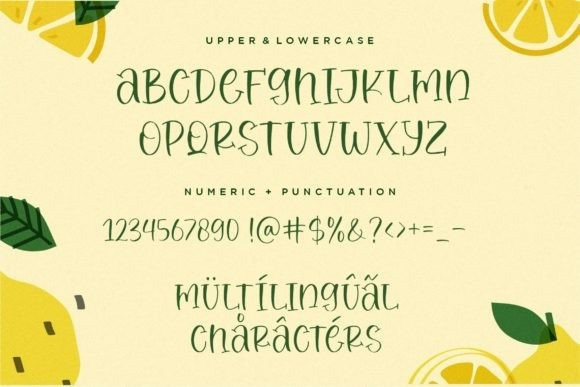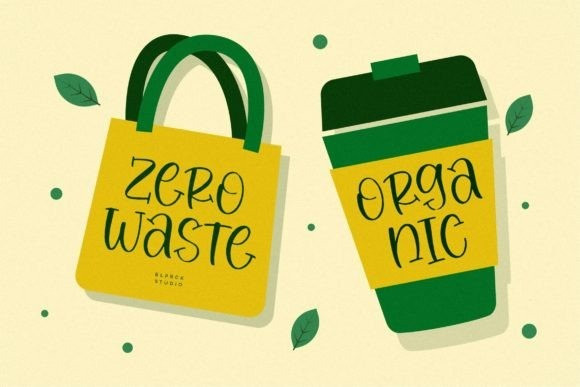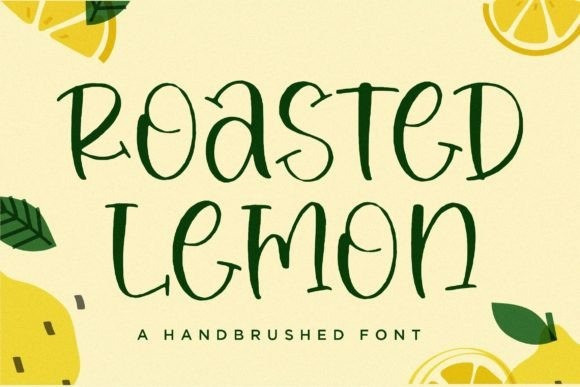
Roasted Lemon Font
Roasted Lemon Font is a Handbrushed Font. Whether you’re using it for crafts, digital design, presentations, or making greeting cards, this font has the potential to become your favorite go-to font, no matter the occasion!